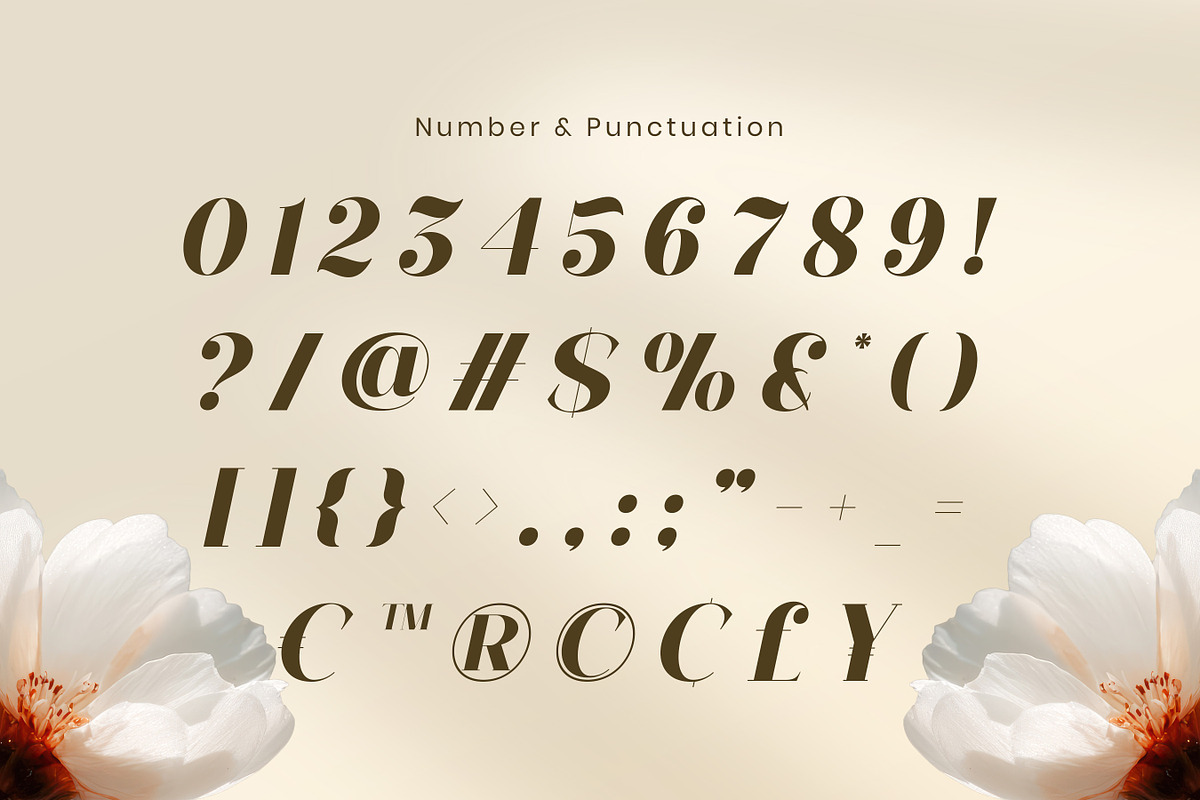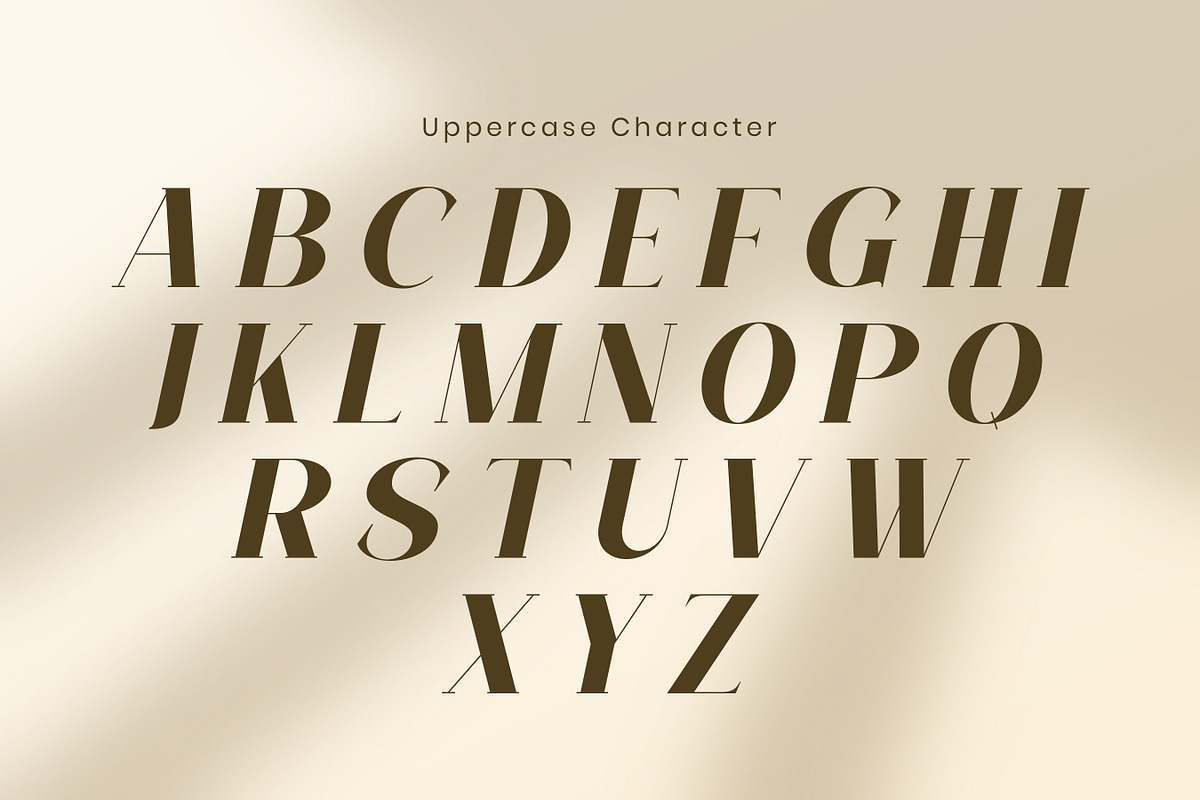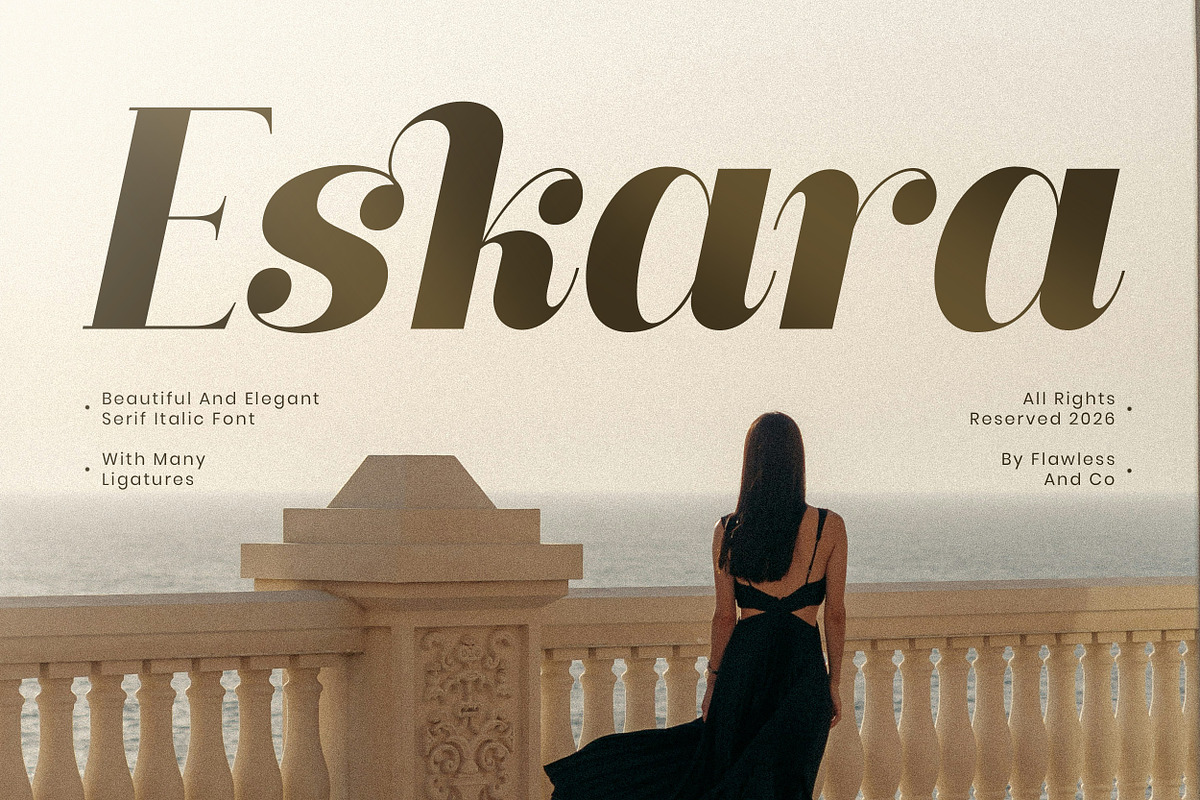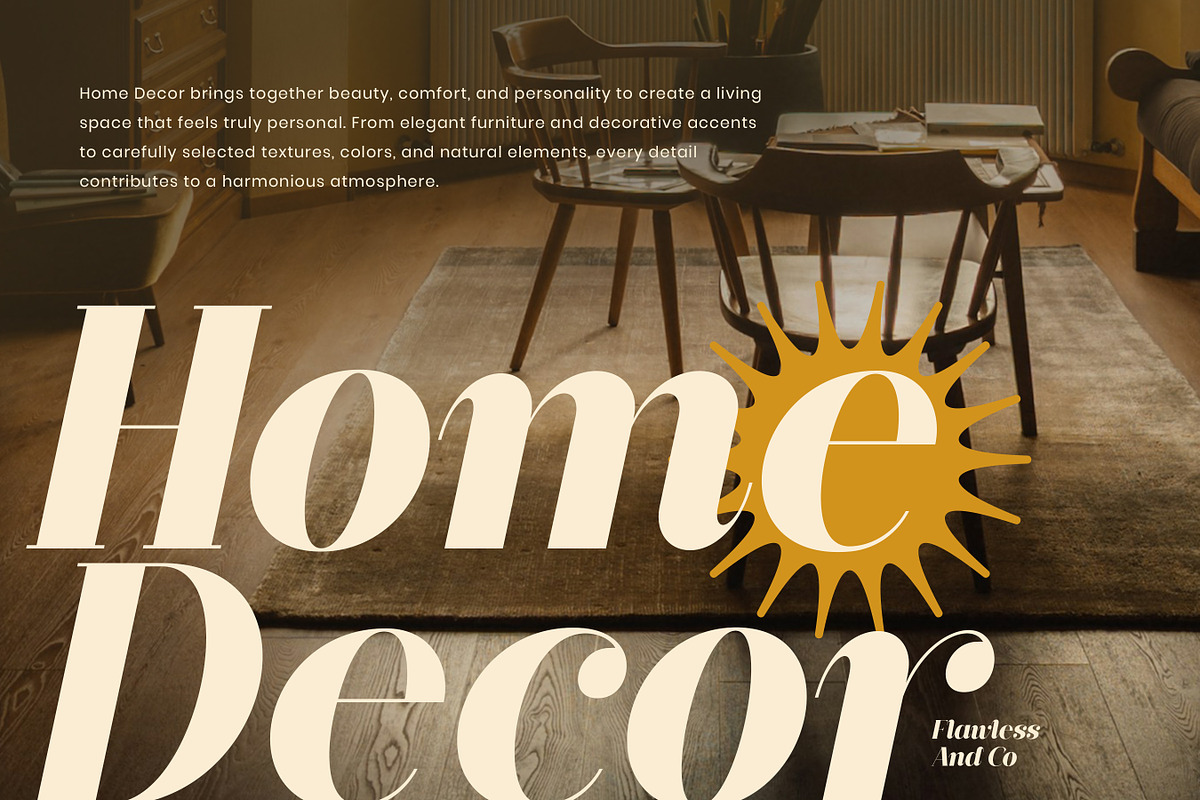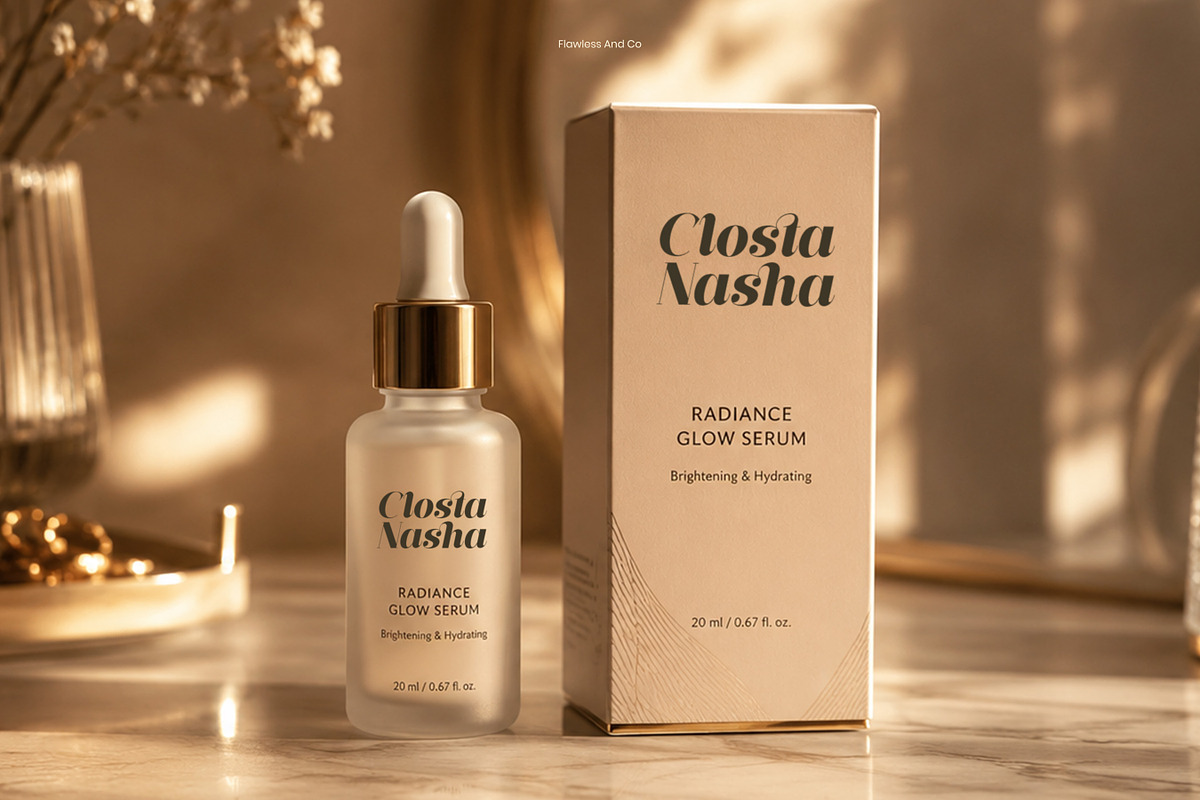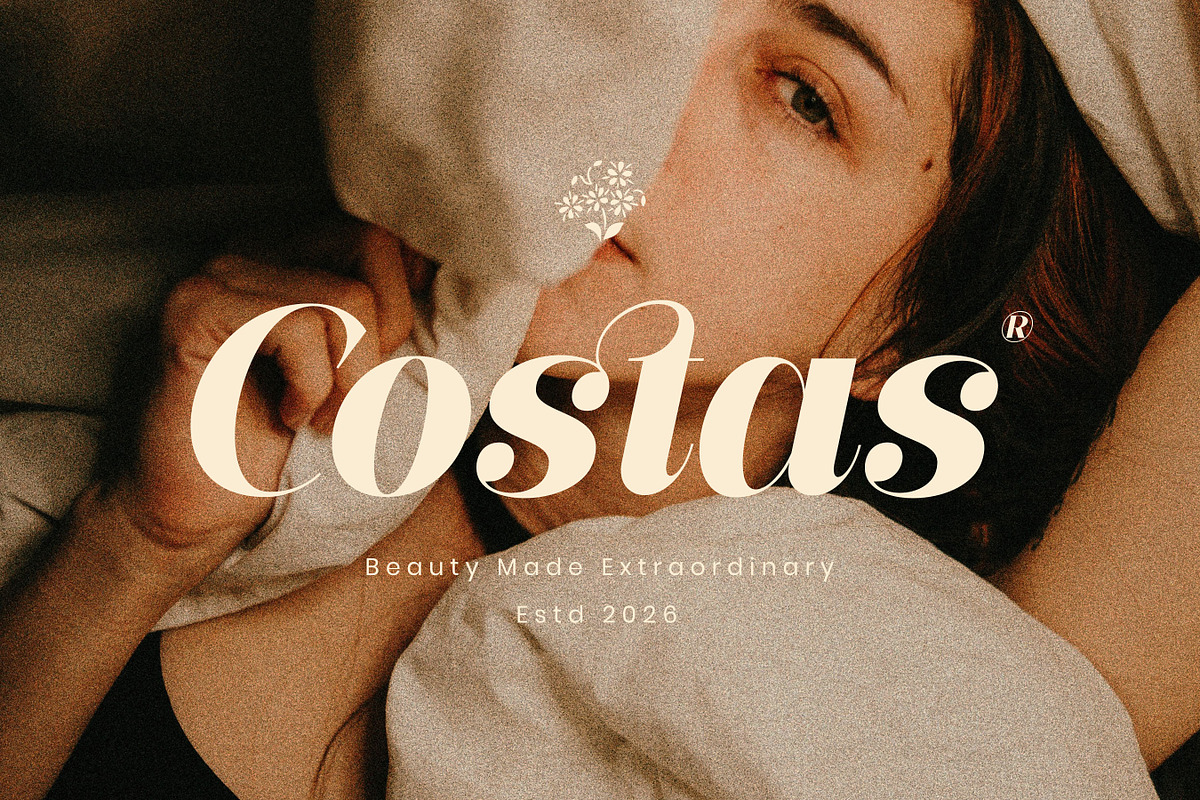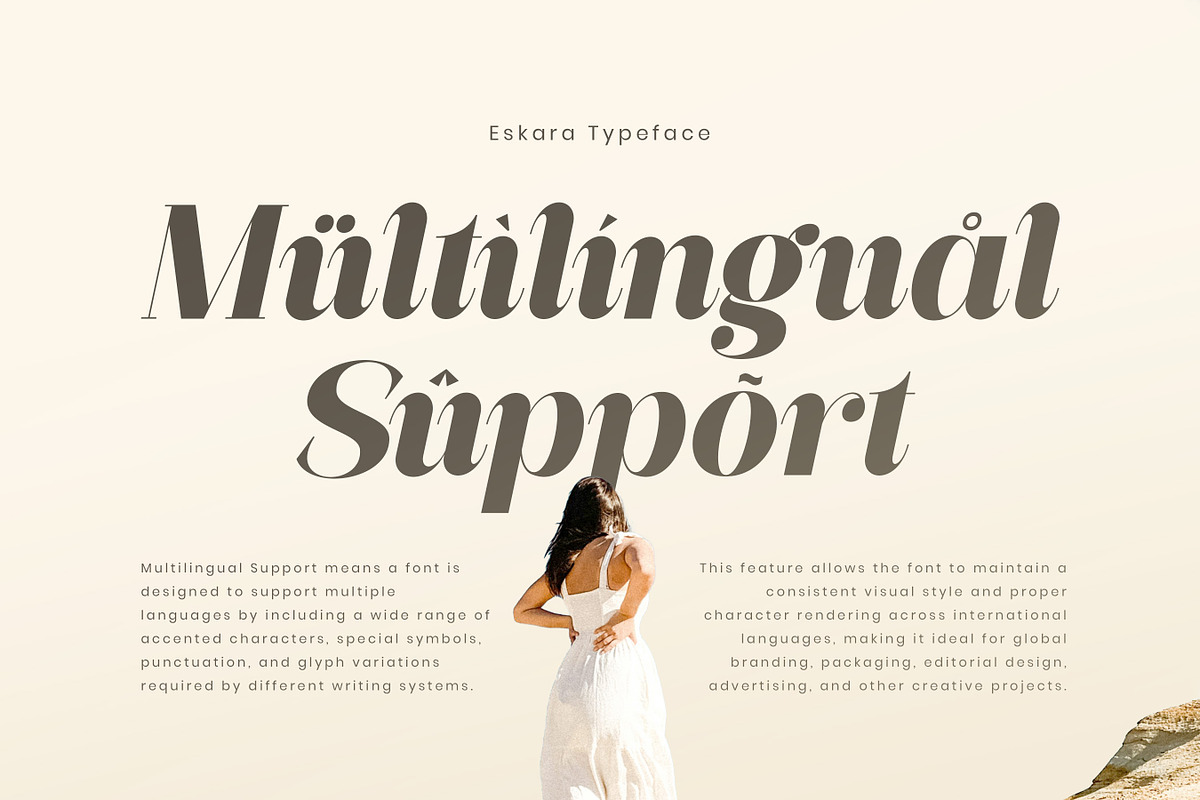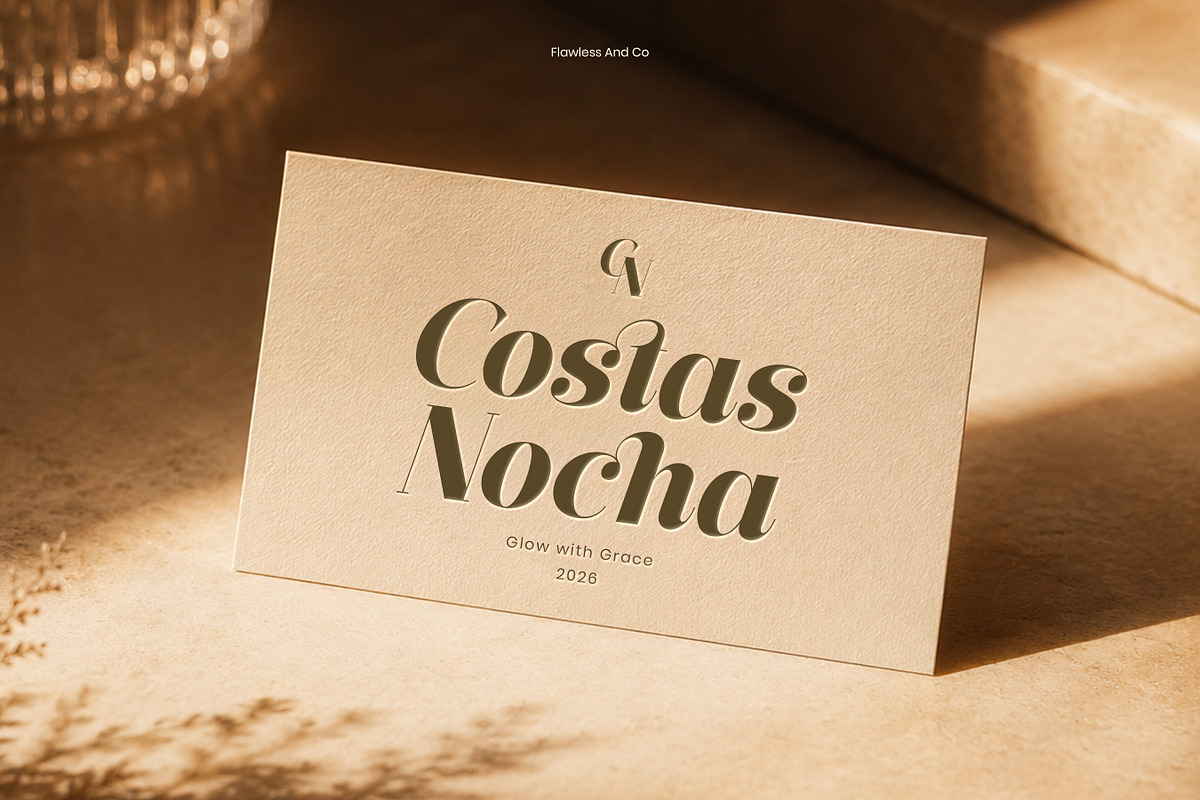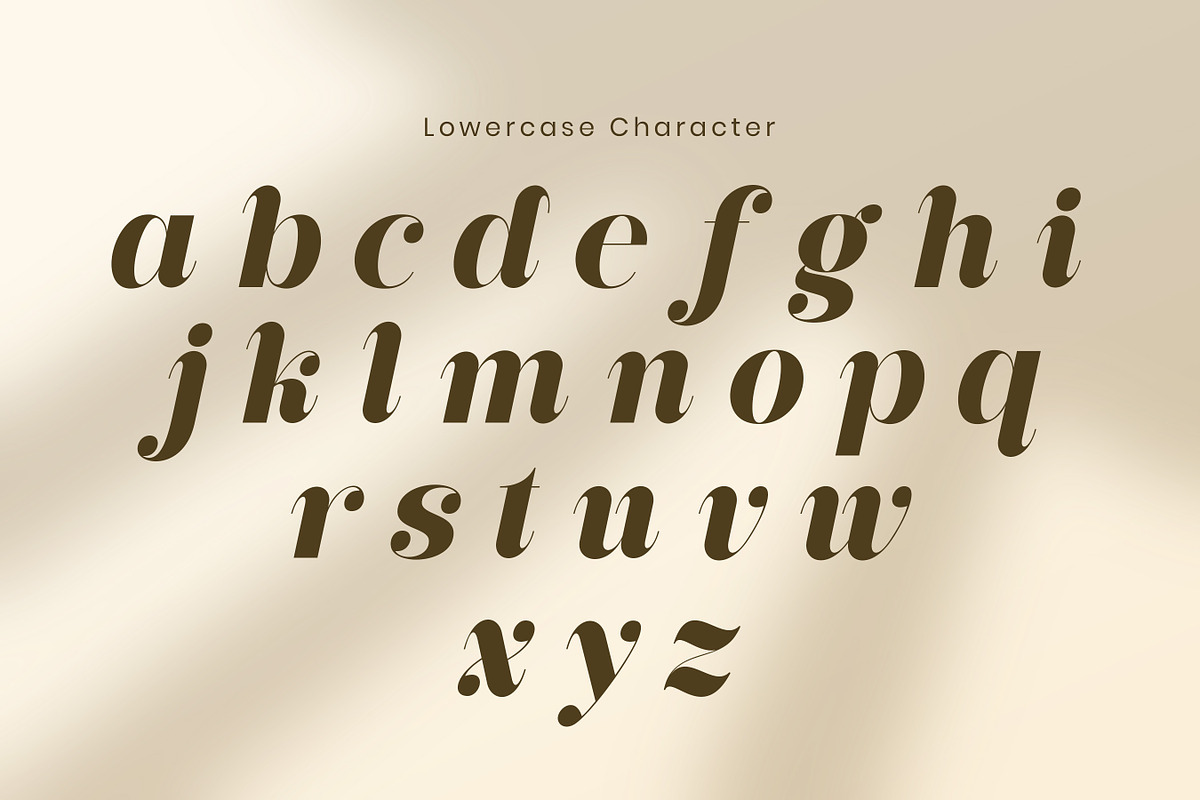
Eskara - Elegant Italic Serif Font
Eskara - Elegant and Beautiful Italic Serif Font
Eskara is a refined italic serif typeface that brings elegance, beauty, and sophistication into every design. With its graceful curves, delicate details, and expressive letterforms, Eskara creates a luxurious and timeless impression that feels both classic and contemporary. Its stylish italic character gives each word a sense of movement and personality, making it an excellent choice for designs that deserve a sophisticated visual statement. From elegant logos to fashion editorials and premium packaging, Eskara adds a beautiful finishing touch with effortless charm.
Alternates & Ligatures
Who Should Use Eskara?
Eskara is perfect for designers, creatives, and brand owners looking for a beautiful italic serif font with an elegant and luxurious personality. It’s especially suitable for projects that aim to create a refined, feminine, and high-end visual identity.
Suitable For:
Luxury and elegant branding
Fashion and beauty logos
Editorial and magazine designs
Premium packaging and product labels
Jewelry and perfume branding
Boutique and lifestyle identities
Wedding stationery and invitations
Social media and promotional content
Elegant posters and advertisements
Beautiful typography and quote designs